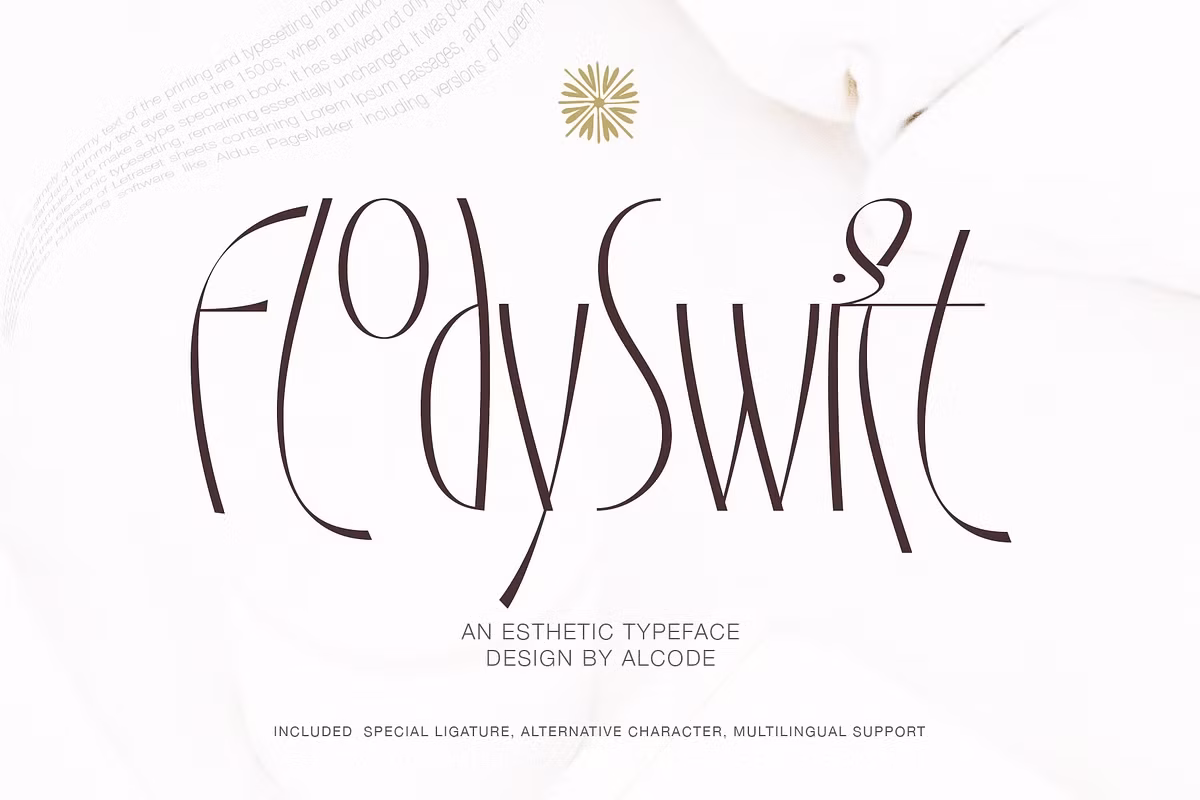
The FlodySwift Esthetic Font Free Download is an elegant and stylish typeface designed with modern aesthetics in mind. Perfect for beauty brands, fashion labels, lifestyle blogs, and high-end editorial design, this font blends sophistication with simplicity, creating a unique and refined look for your projects.
With its smooth curves and contemporary structure, FlodySwift Esthetic brings a touch of class and modernity to any design. It includes uppercase and lowercase letters, numbers, punctuation, and multilingual support, making it a versatile choice for a wide variety of applications.